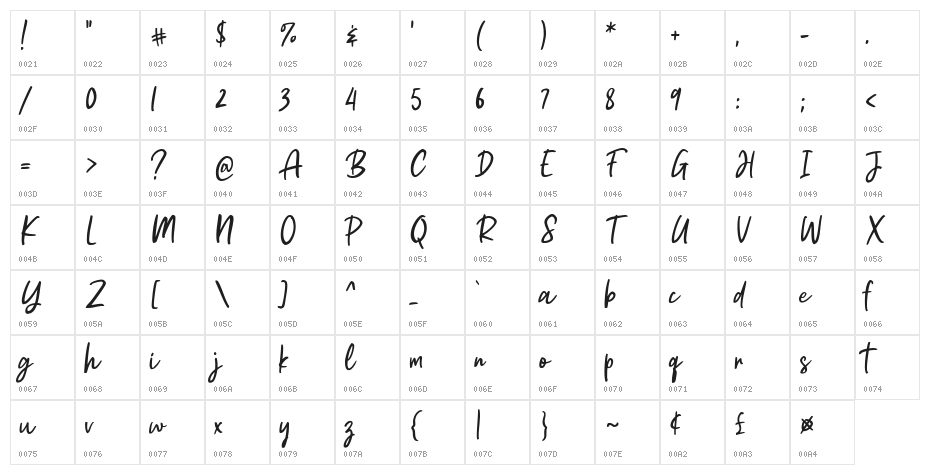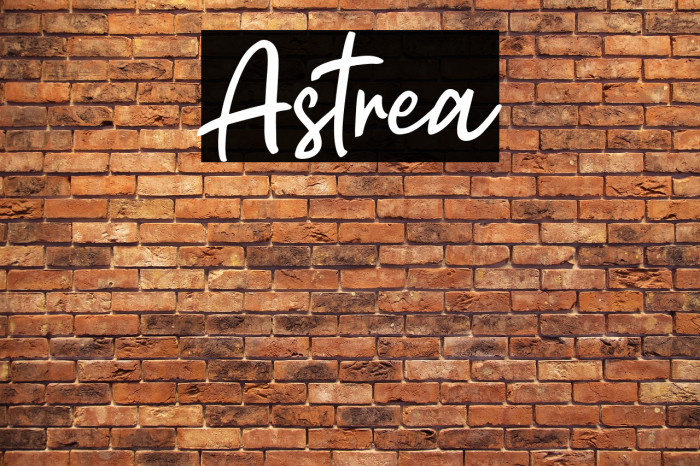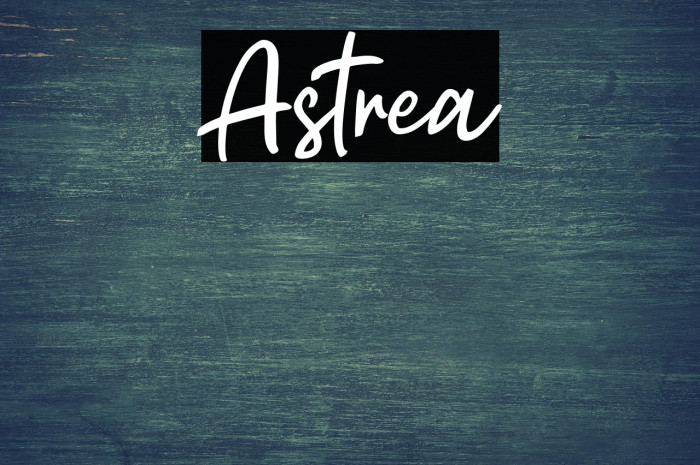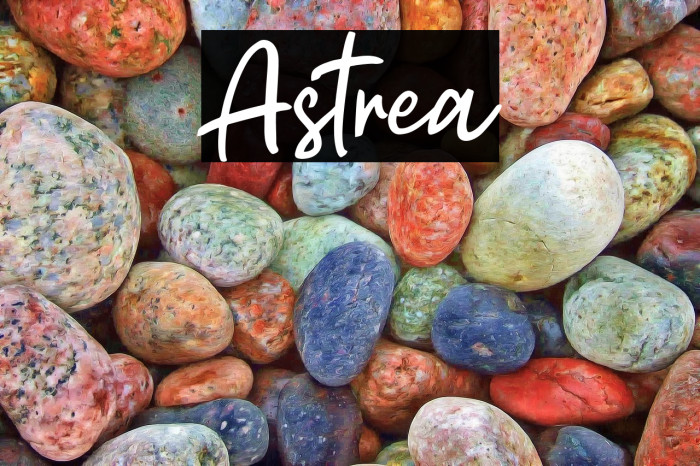
Astrea Font
Astrea Description
This font exudes a lively and energetic vibe with its handwritten style. The letters are crafted with a natural flow, featuring slightly irregular strokes that add a personal touch. The uppercase letters are bold and prominent, while the lowercase letters maintain a consistent rhythm. Numbers and special characters are designed to match the playful and informal aesthetic, making them suitable for creative projects. The overall appearance is both approachable and dynamic, ideal for conveying a sense of spontaneity and creativity.
| Use Case | Logos, Headlines, Creative projects |
| Proposed Projects | Ideal for greeting cards, invitations, branding projects, and social media graphics. |